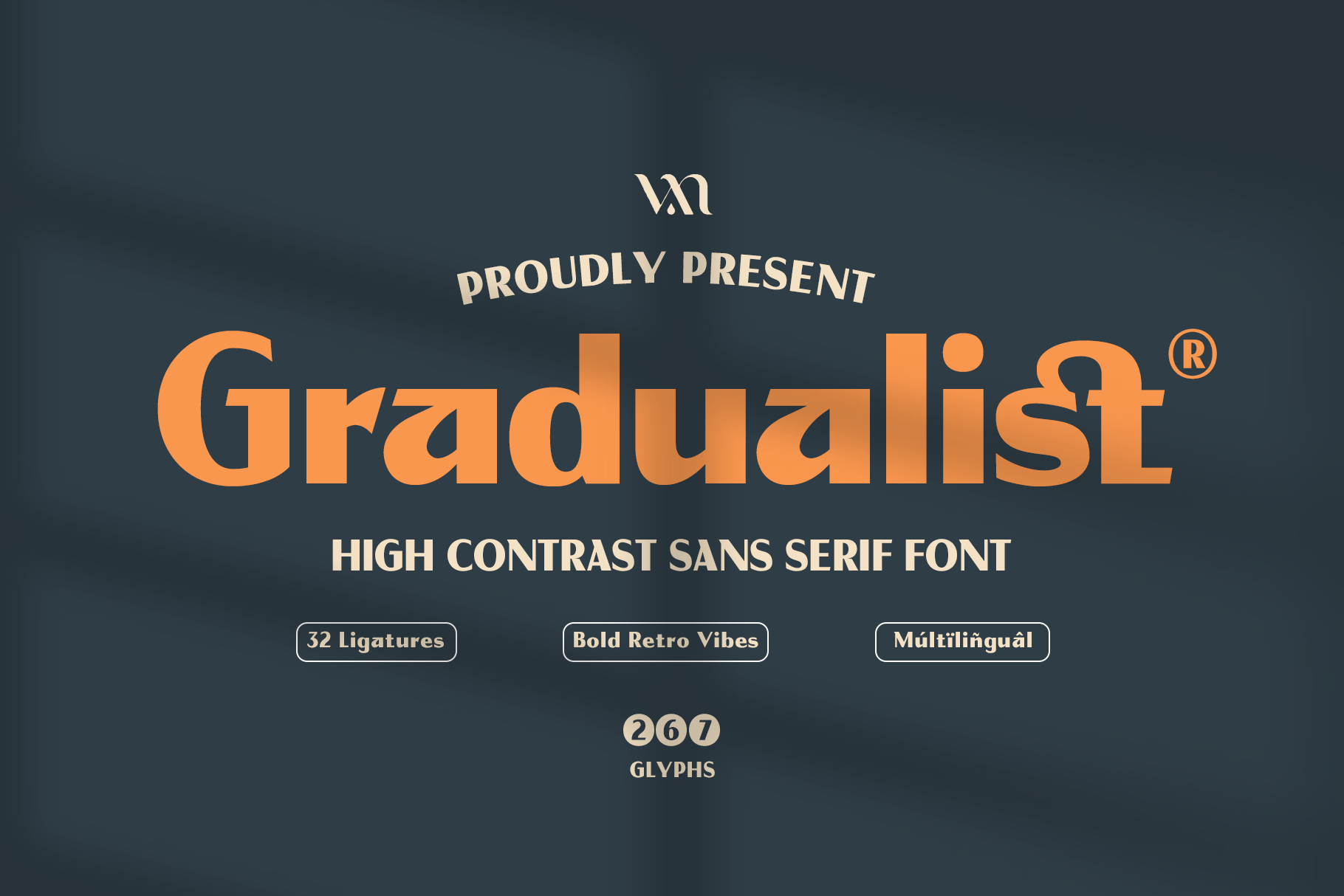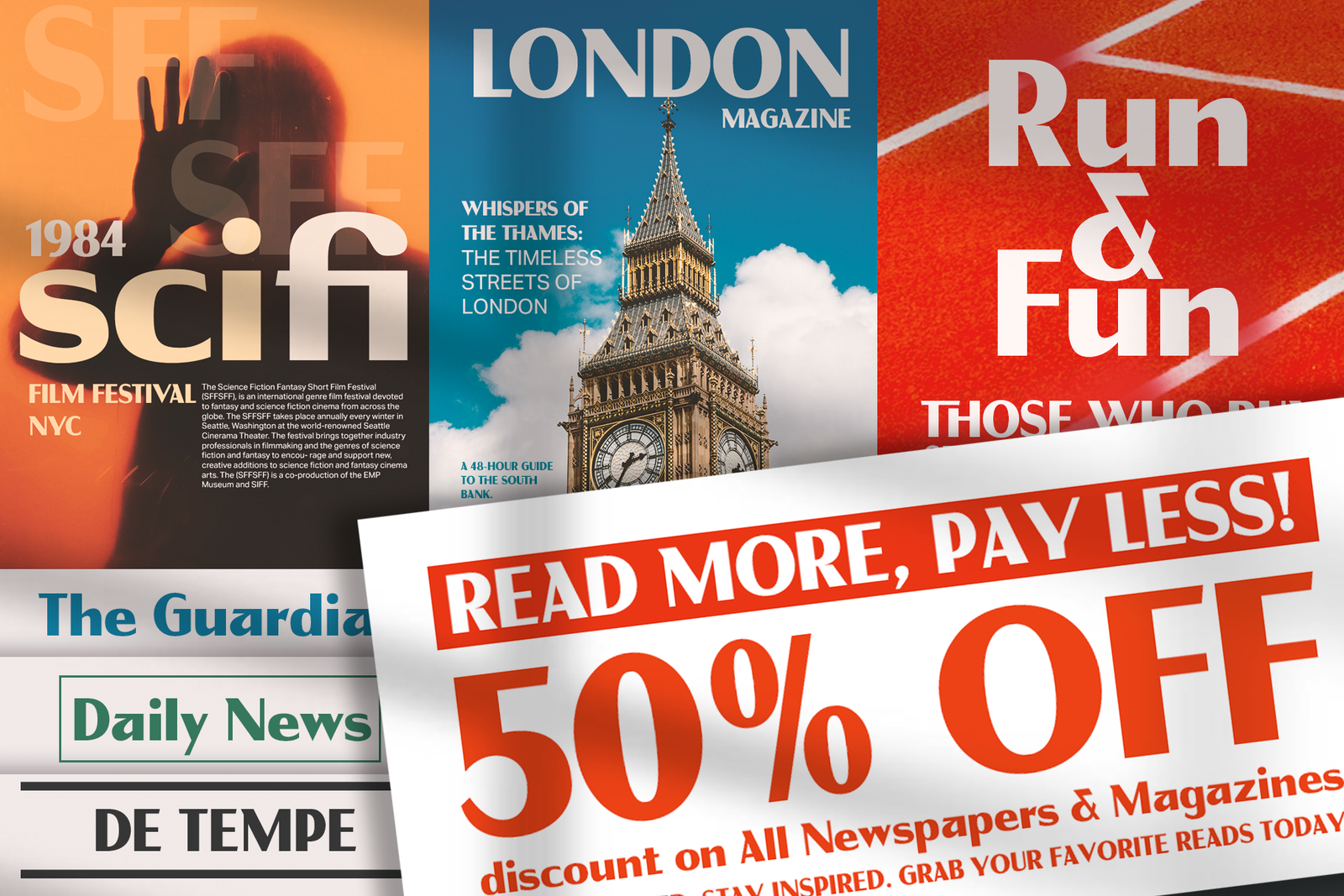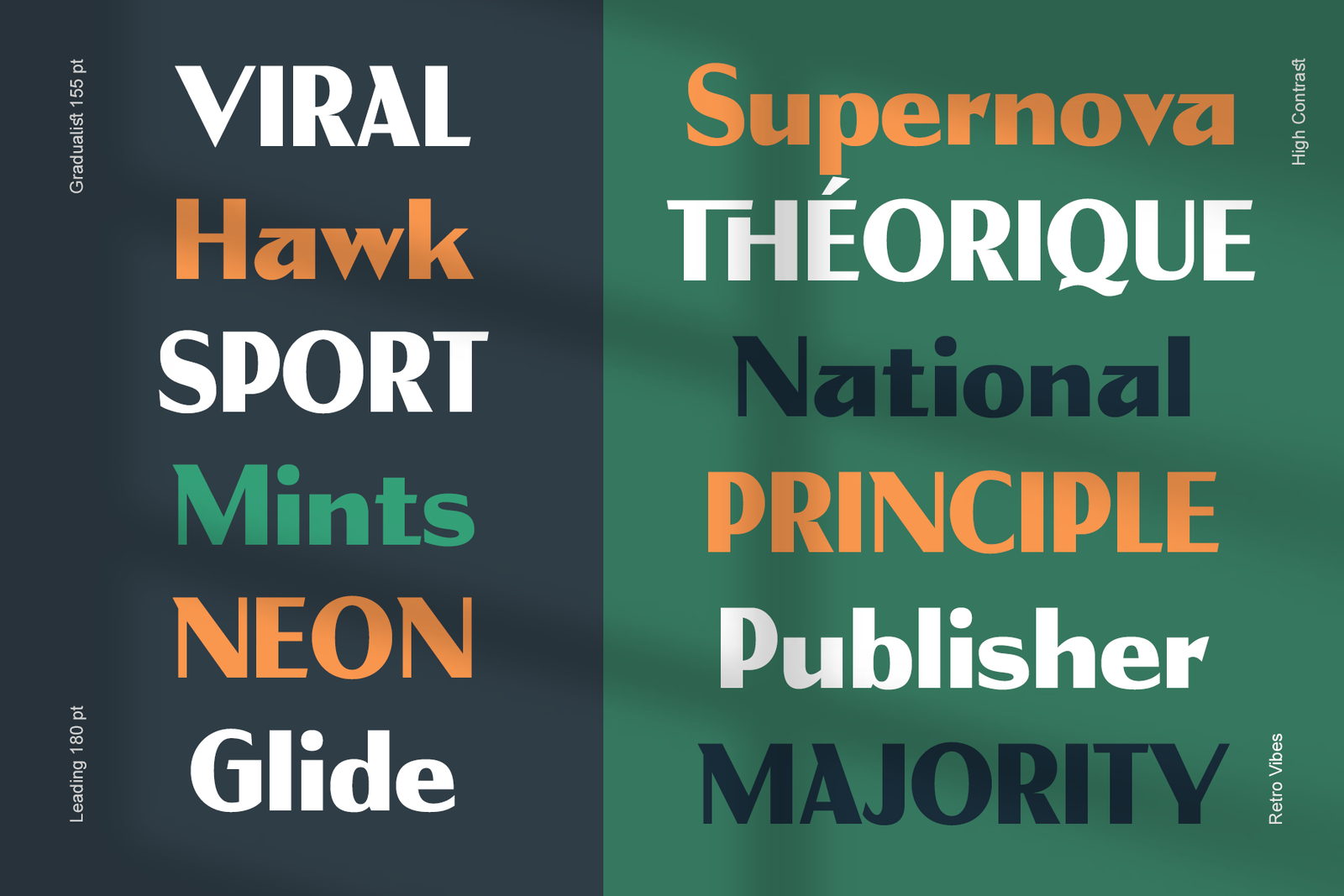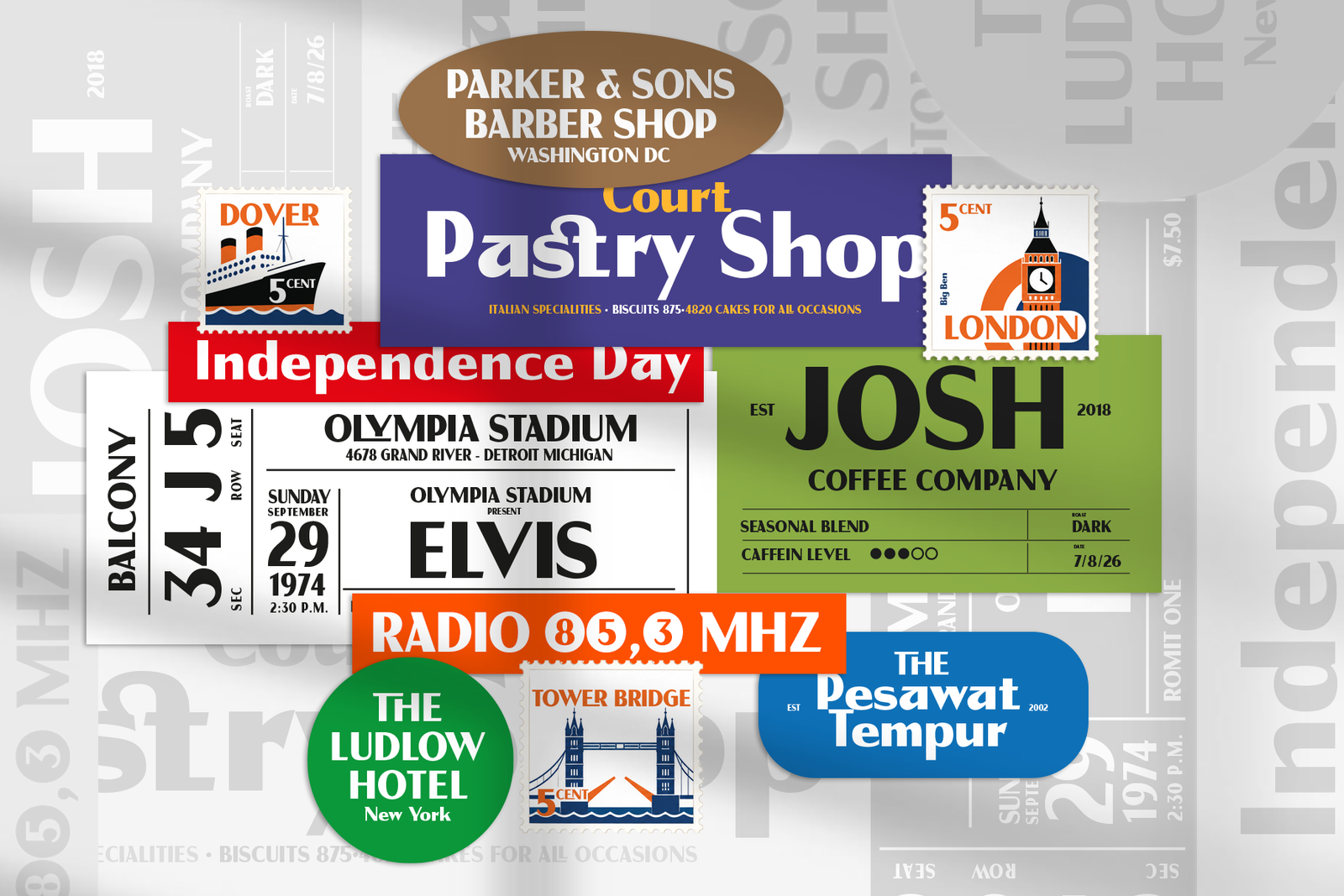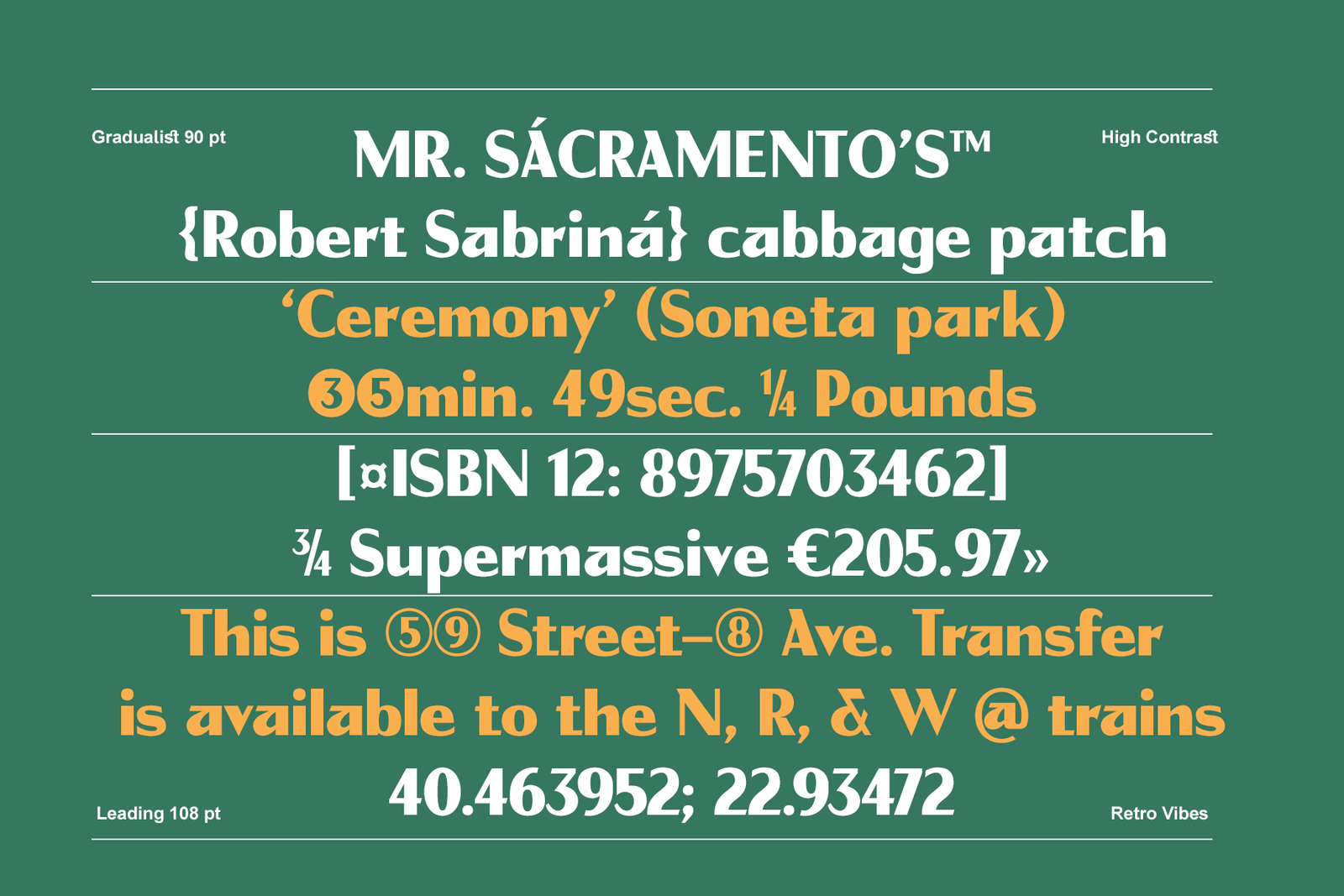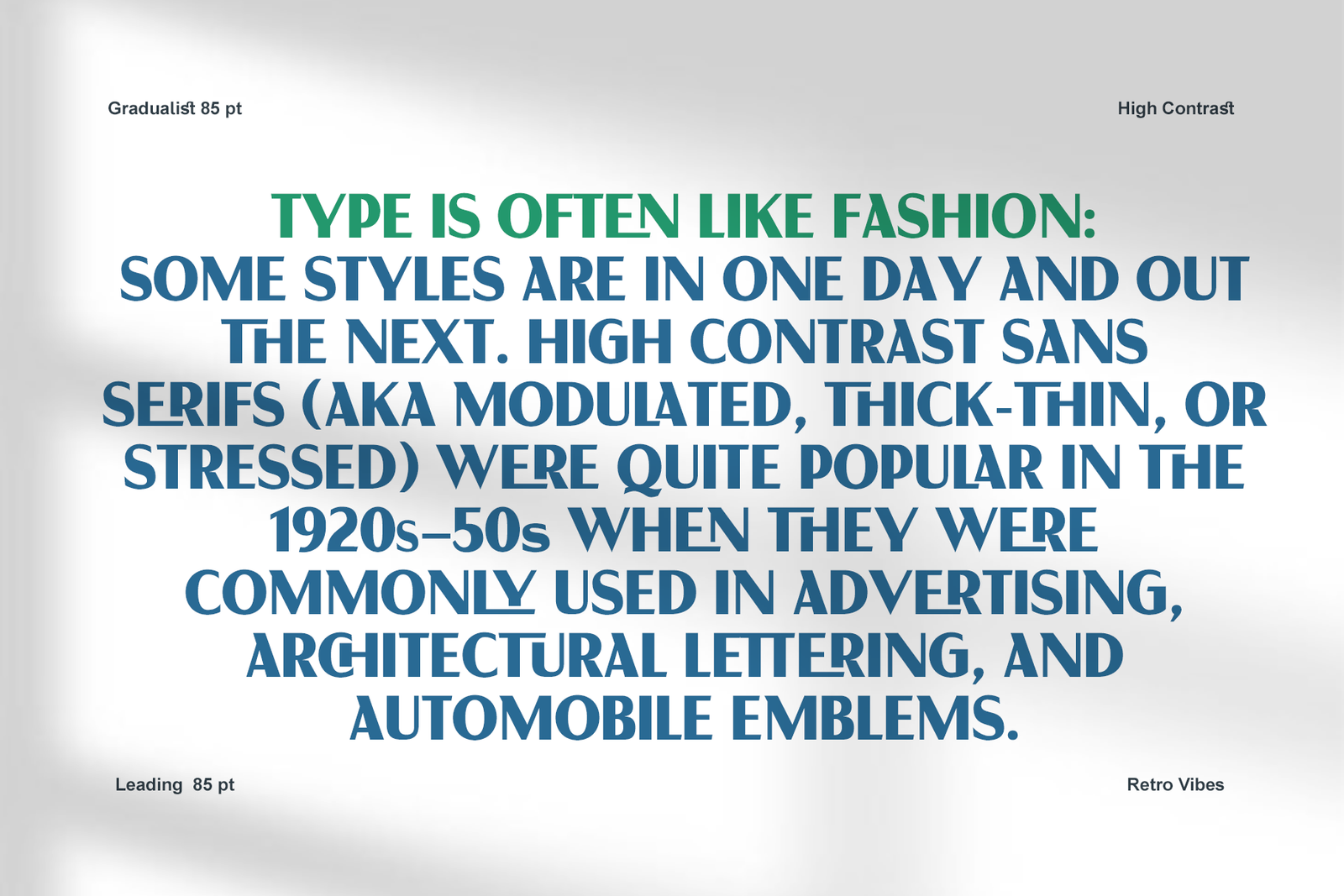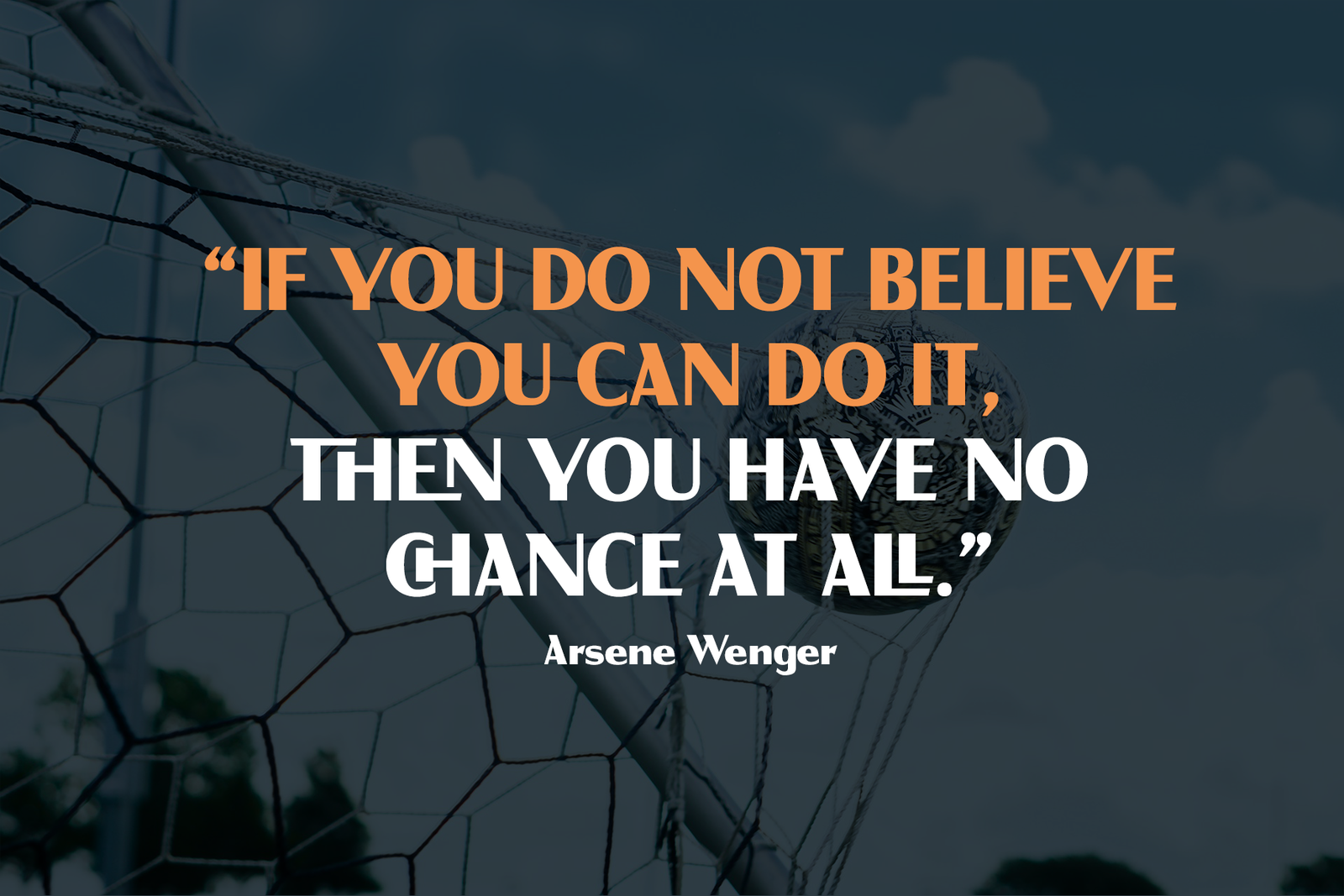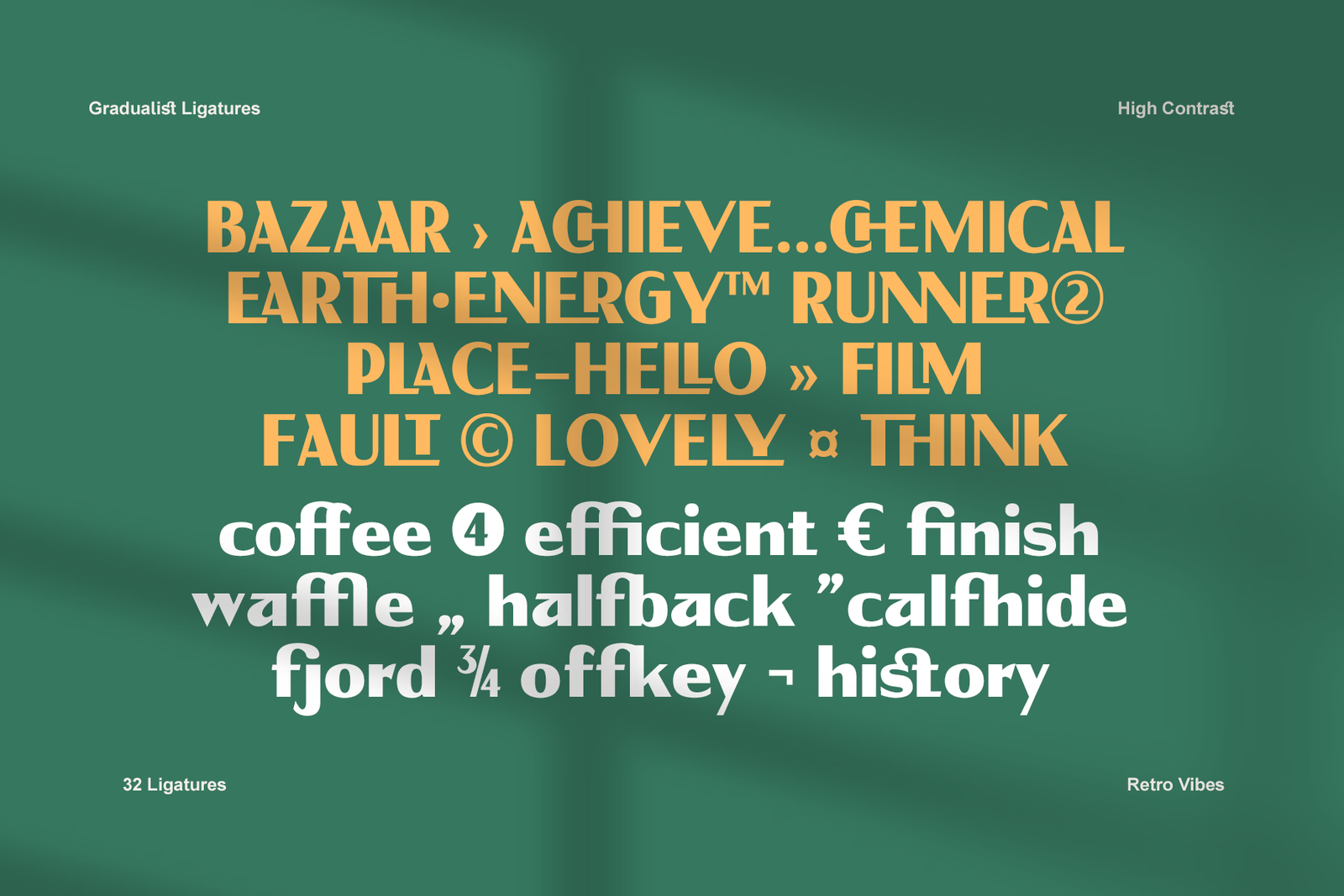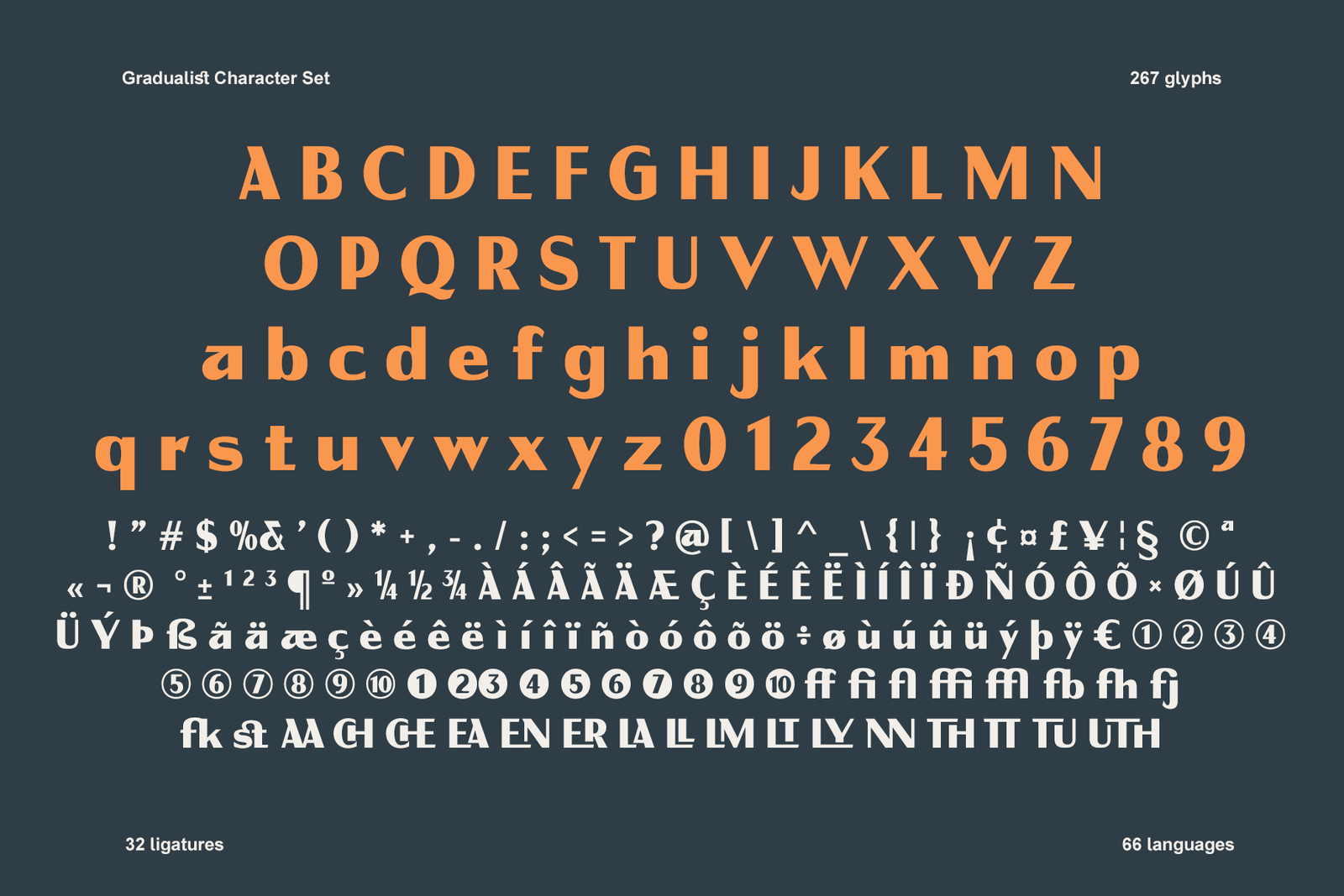
Gradualist – High Contrast Retro Sans Serif
Introducing Gradualist – High Contrast Retro Sans Serif
Gradualist is a high-contrast display sans serif with bold upright shapes, sharp modulation, and a retro editorial feel. Its letterforms combine heavy vertical weight with thin cuts, angled terminals, and compact proportions, giving titles a strong vintage character.
- Uppercase and lowercase letters
- Numbers and punctuation
- Decorative ligatures
- OpenType alternates
- Latin multilingual support